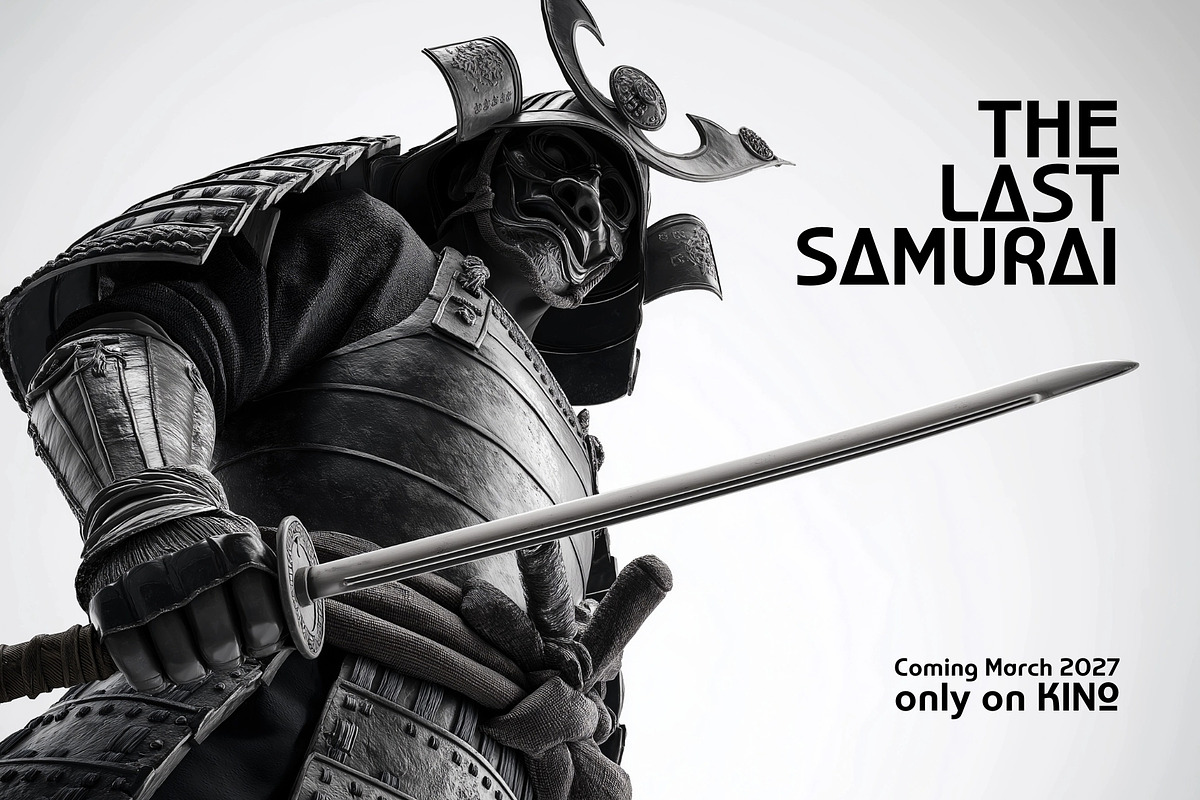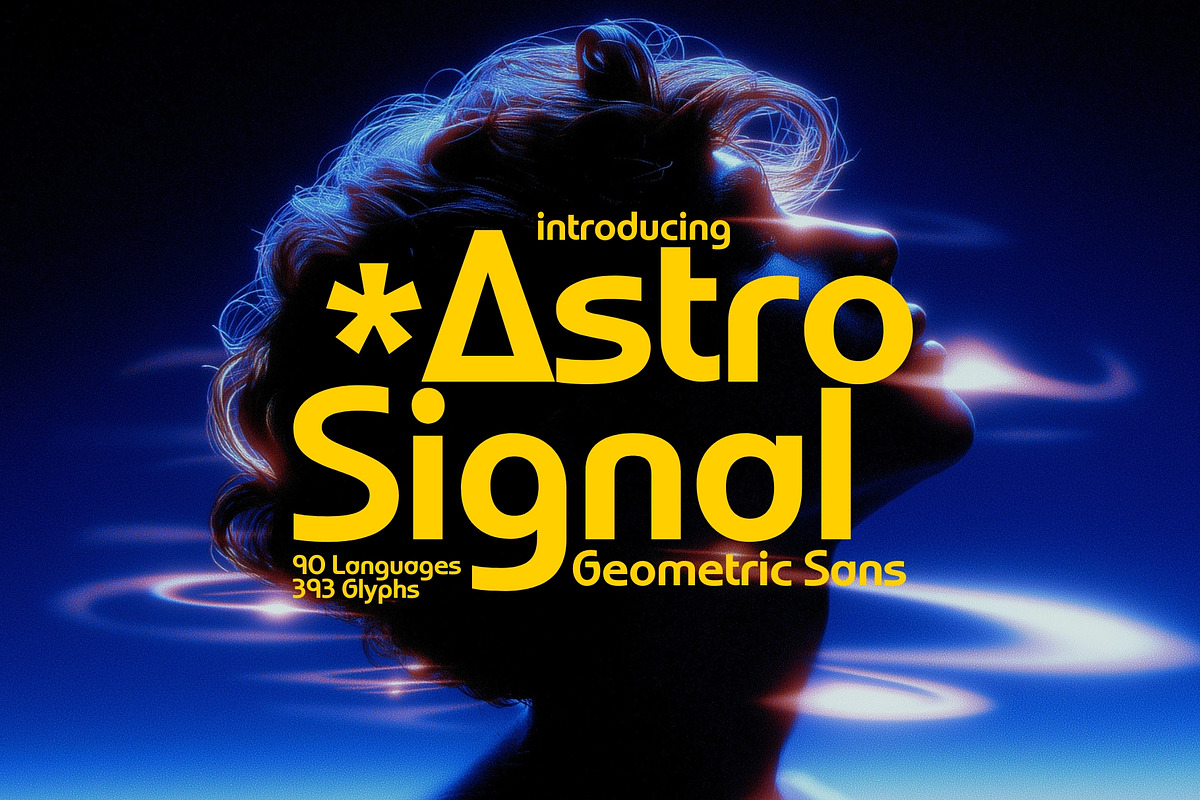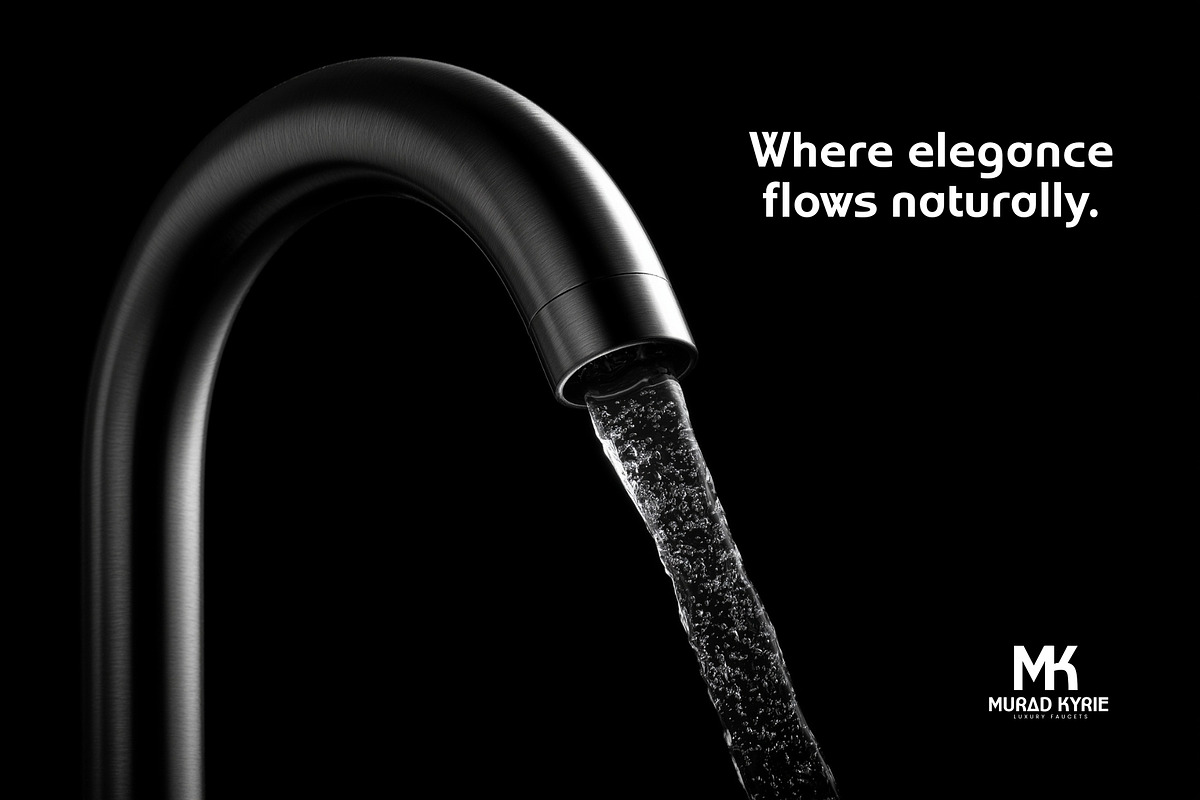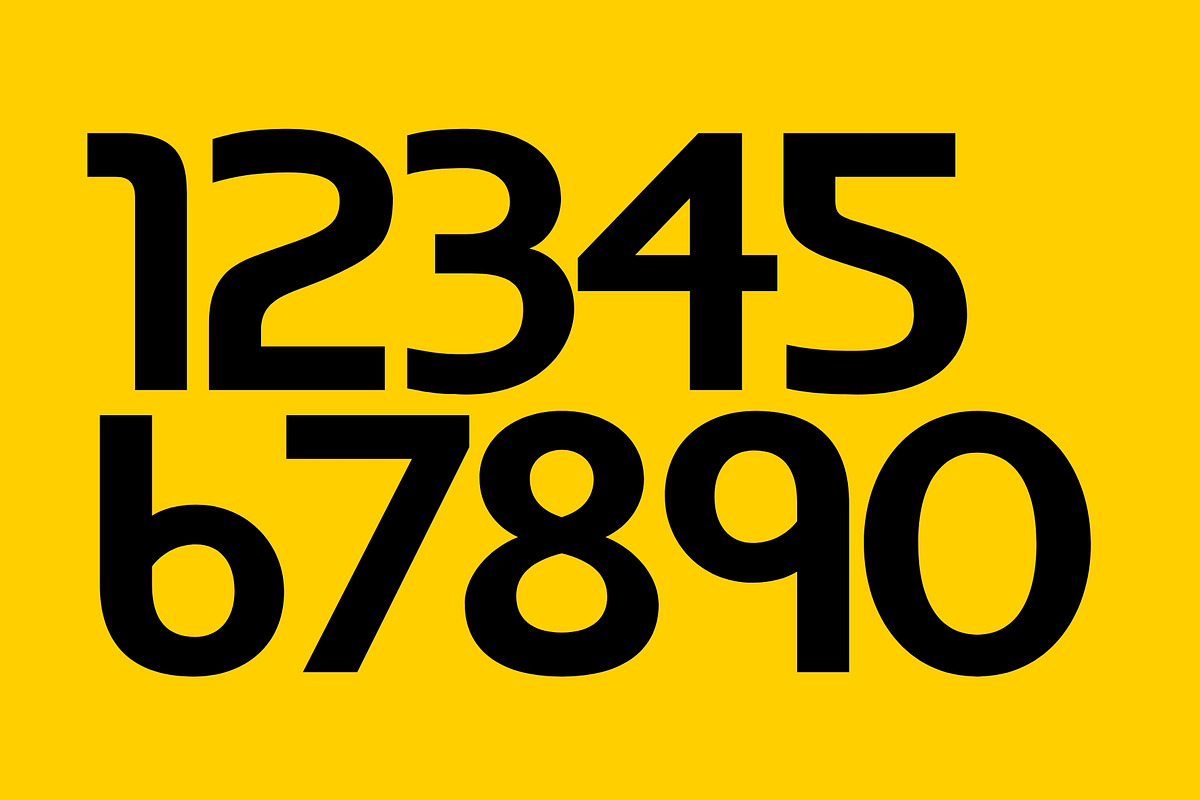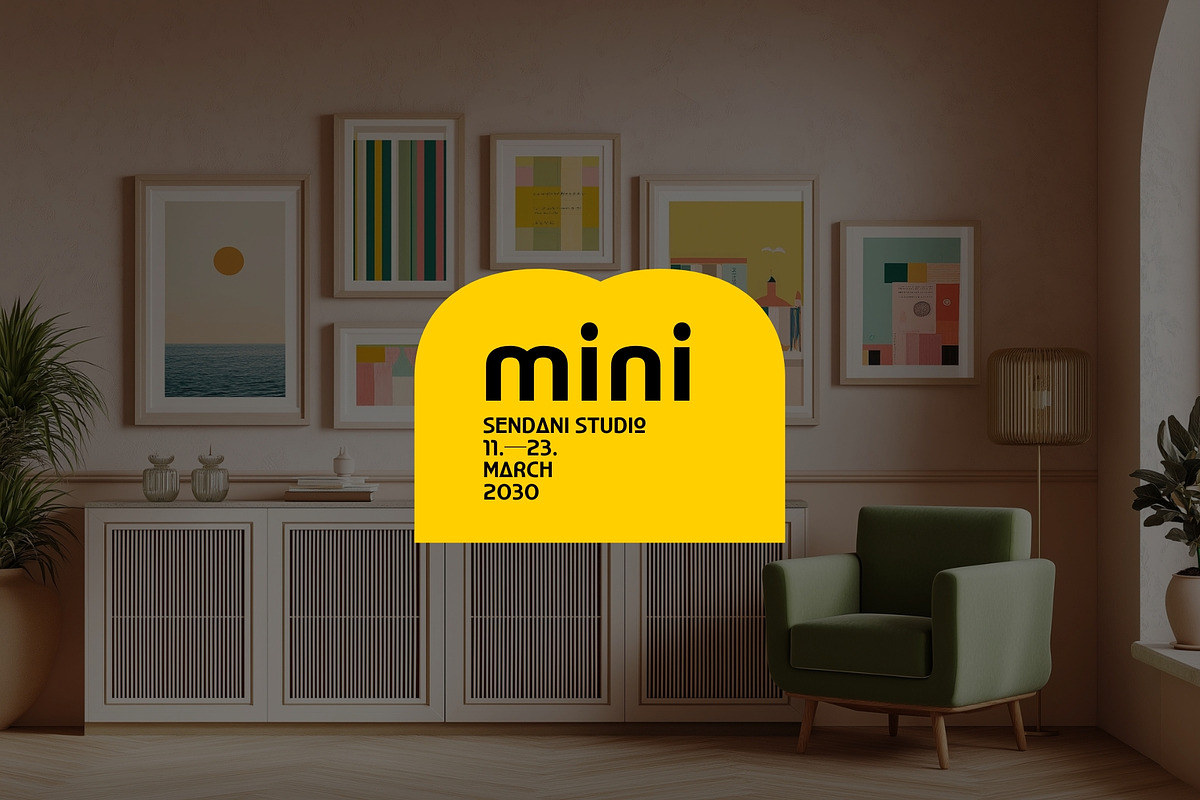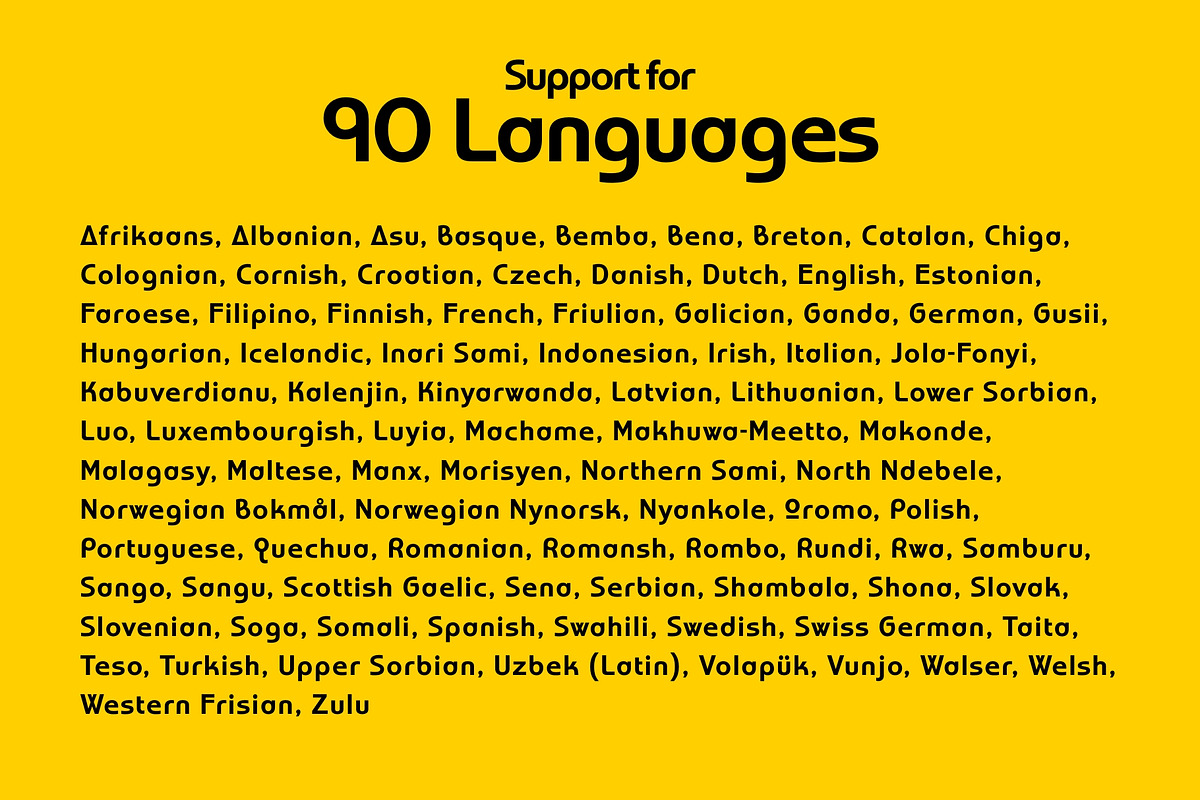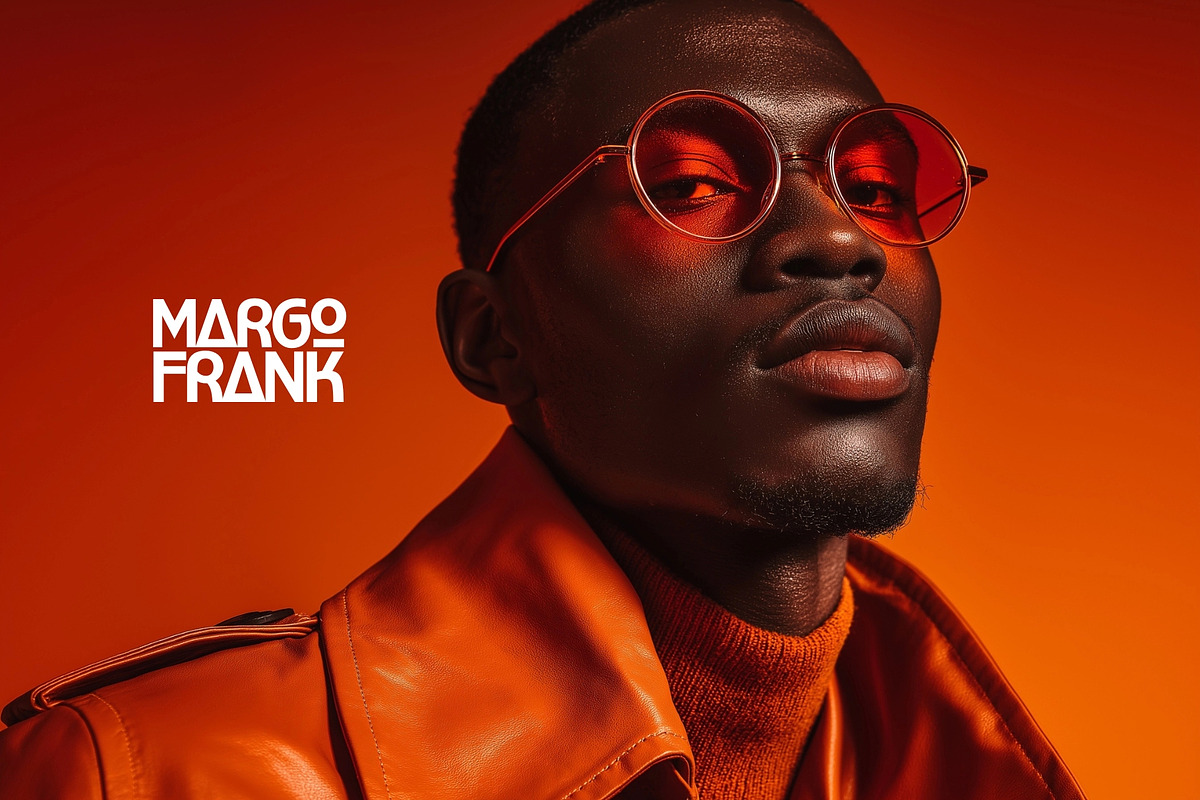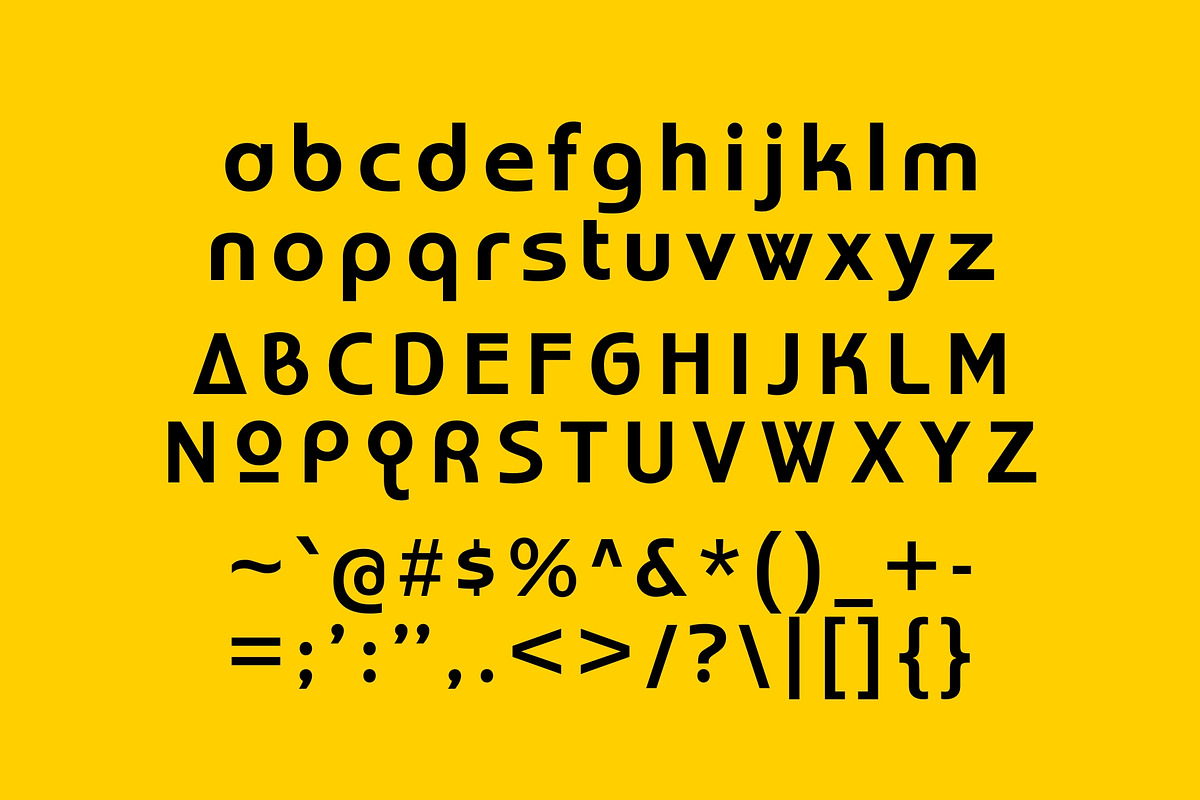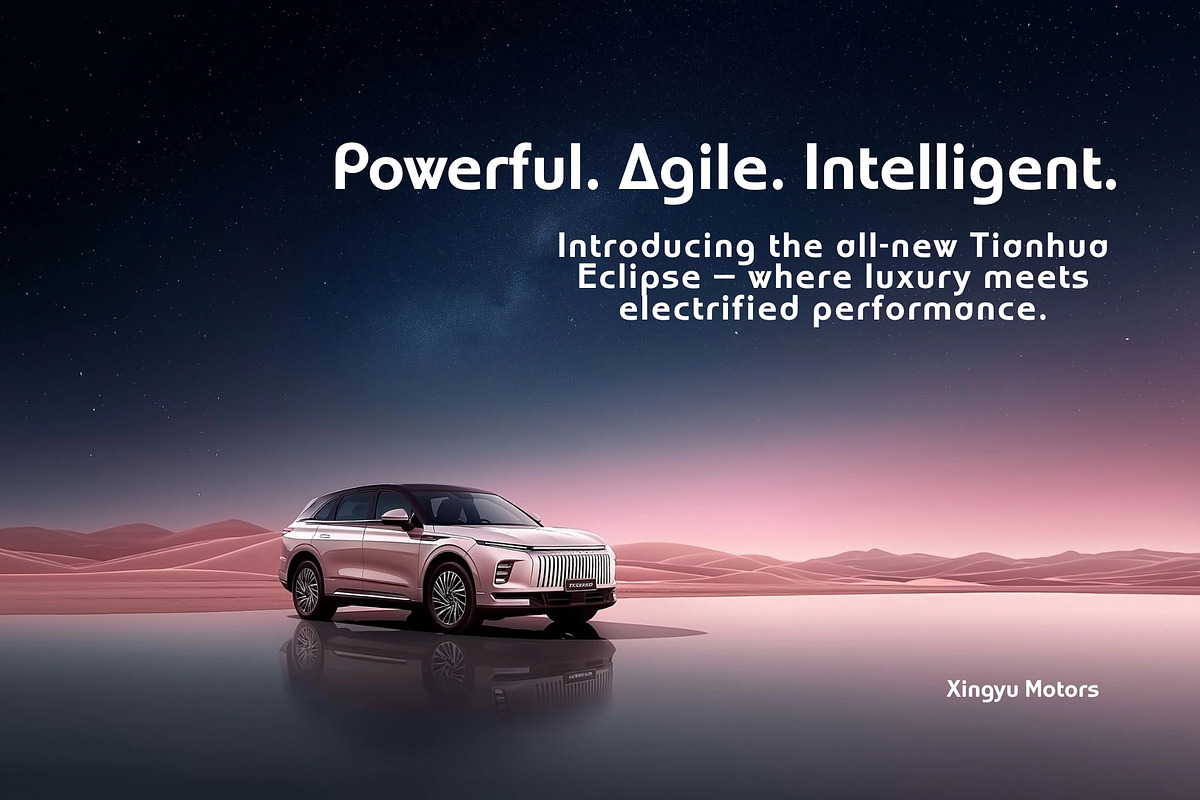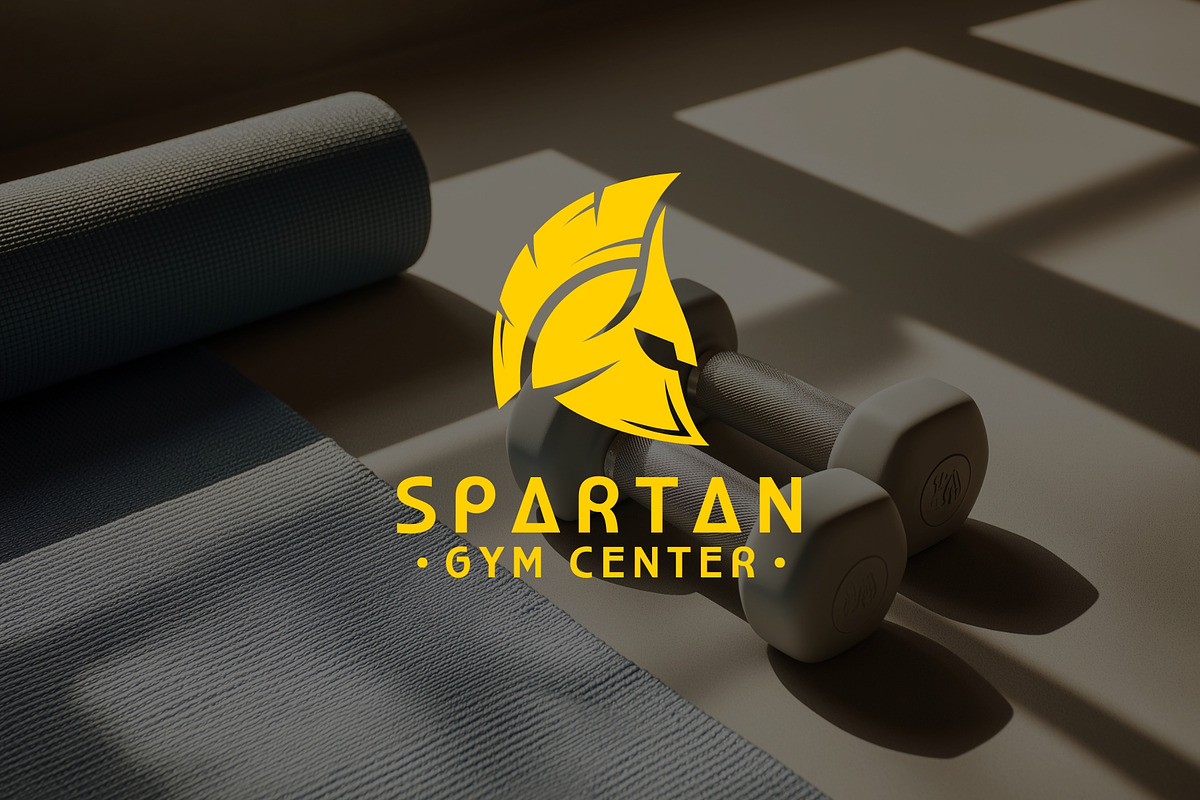
Astro Signal - Geometrical Sans
Astro Signal is a striking geometric sans-serif typeface designed for those who demand clarity, sophistication, and timeless elegance. With its clean lines, balanced proportions, and luxurious aesthetic, it’s perfect for a wide range of applications — from corporate branding and high-fashion editorial work to cutting-edge graphic design. Every letter, number, and symbol has been meticulously crafted to create a professional and refined look, making your projects stand out with confidence and style.
Featuring 393 glyphs and support for 90 languages, Astro Signal ensures global versatility without compromising on its sleek, modern feel. Whether you’re designing logos, marketing materials, websites, or social media graphics, this font combines precision and beauty, giving your work a polished, high-end finish that resonates with elegance. Astro Signal isn’t just a typeface — it’s a statement of professionalism, luxury, and modern design excellence.